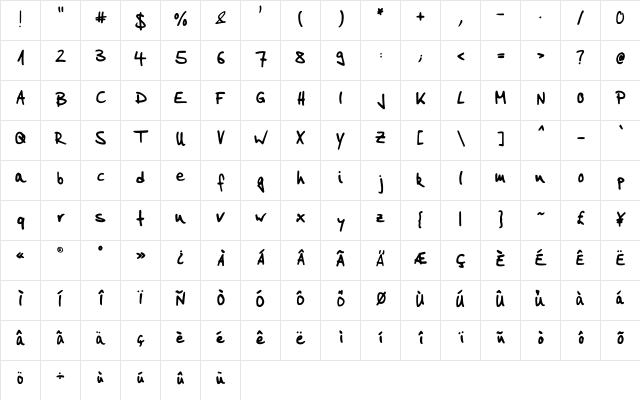
Heins ED3 Regular
Design Context for Heins ED3 Typeface
Heins ED3 takes a measured approach to typography — its balanced proportions and neutral character make it a reliable workhorse for both digital and print work.